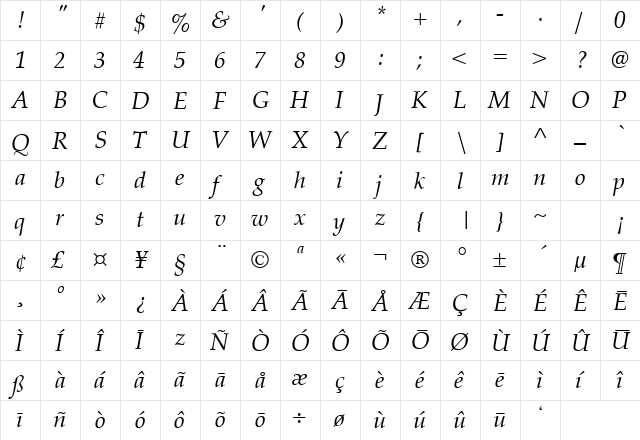
HI Piilani Italic Regular
Design Context for HI Piilani Italic Typeface
HI Piilani Italic offers clean, dependable letterforms without strong stylistic allegiance, making it a practical choice for designers who need flexibility. The dynamic lean of this cut emphasises speed and emphasis in any layout.
Pro Tip: Use HI Piilani Italic for emphasis, pull quotes, and subheadings where its slanted energy can add rhythm to the layout.